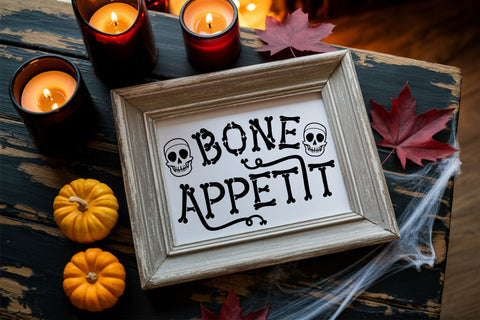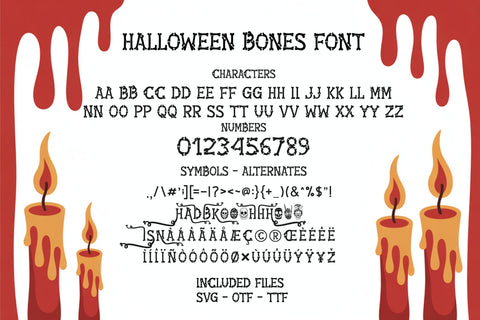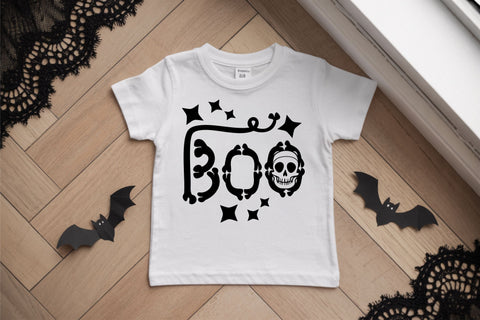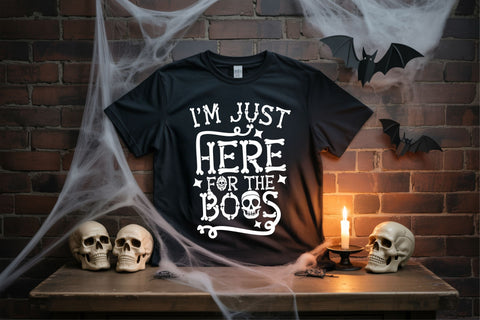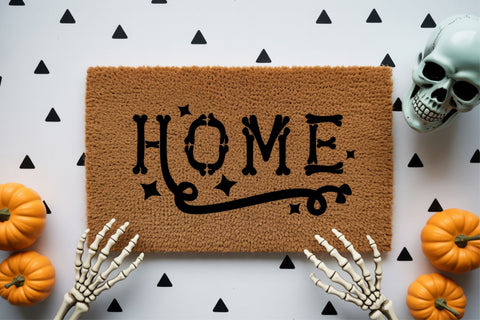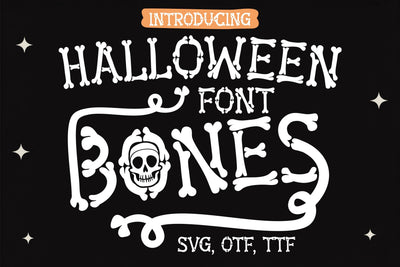
Halloween Bones Font, Skeleton Letters SVG, Bones Font OTF
Immerse in the spookiness of the season with Halloween Bones - a quirky, bone-chilling font that effortlessly combines the eerie aesthetics of bones and skulls with whimsical swirls. It's the go-to choice for all things Halloween, from bold signage to vibrant t-shirts, as well as intriguing invitations and outdoor decorations. Dive into the world of SVG crafts and put a special spin on your creations. Featuring uppercase letters, numbers, and symbols, with a few unexpected extras, Halloween Bones can be incorporated into multiple design platforms like Cricut, Silhouette, and various graphic design tools. It is available in OTF, TTF, and SVG formats. Elevate your festive designs with this daring and skeletal typography which guarantees to add a spine-tingling fun element!